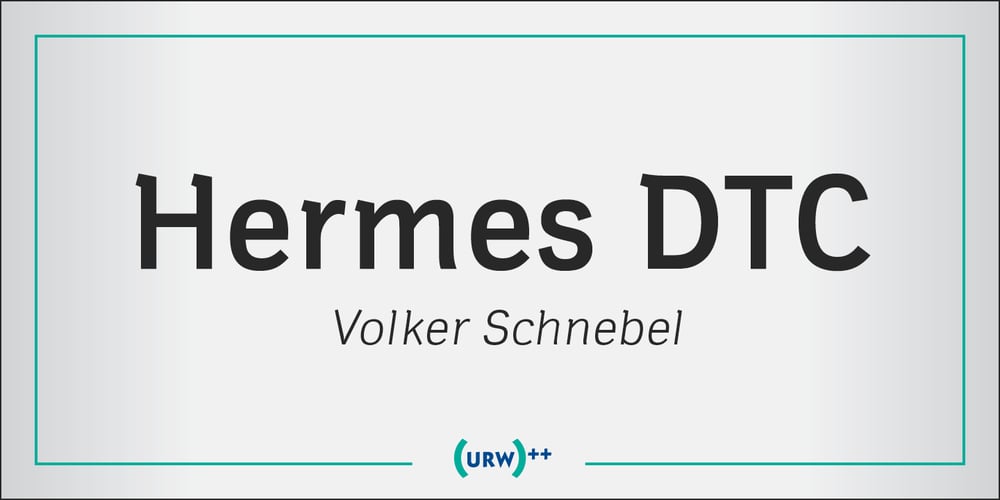
Hermes Font Family was designed by Volker Schnebel and published by URW Type Foundry. Hermes contains 8 styles and family package options. Both Hermes DTC and Imperial DTC font families are strongly influenced by Schnebel’s work on Latin characters to fit Japanese Kanjis. DTC Hermes is well-suited for office documents, looking good on screens as well as printed.